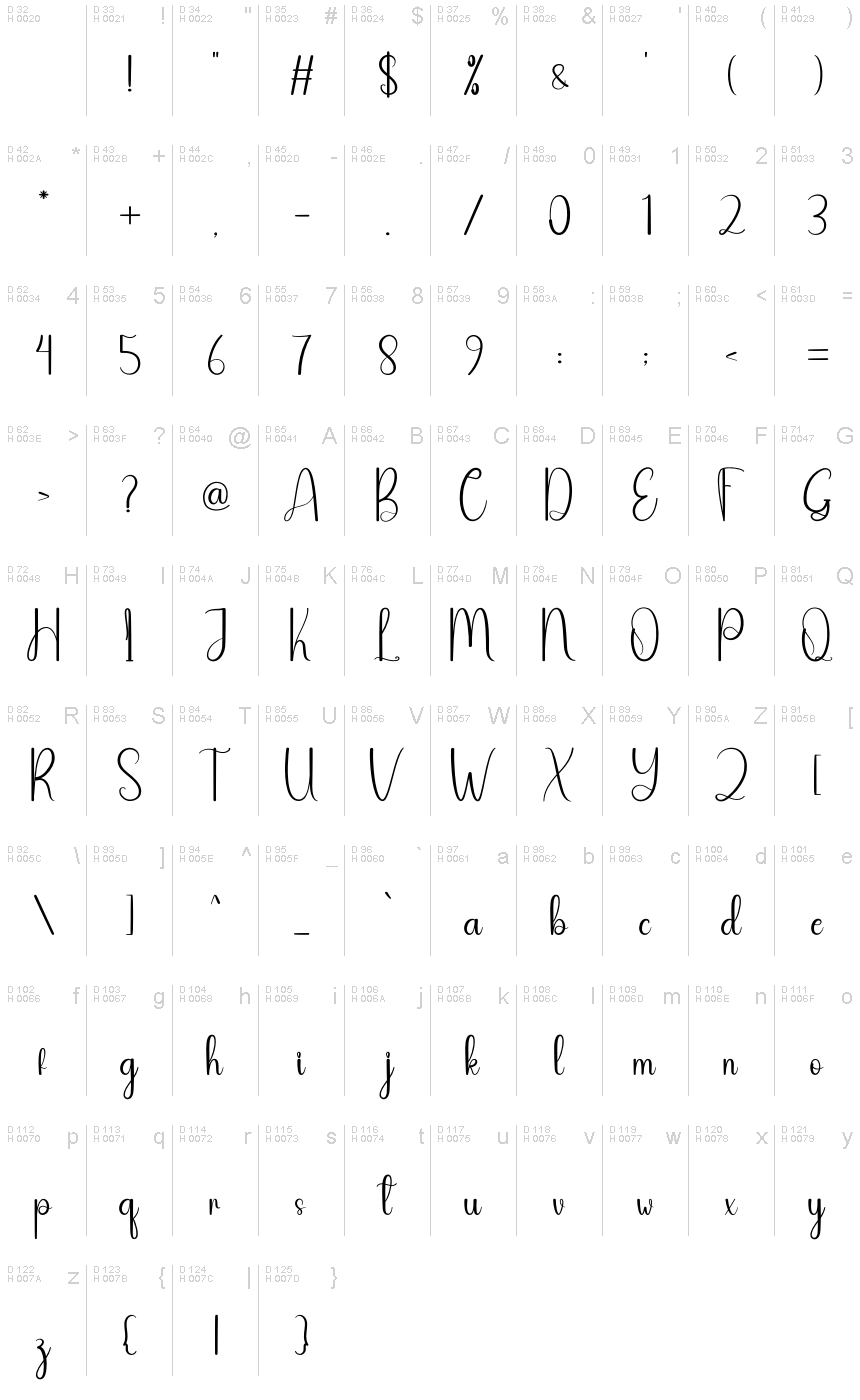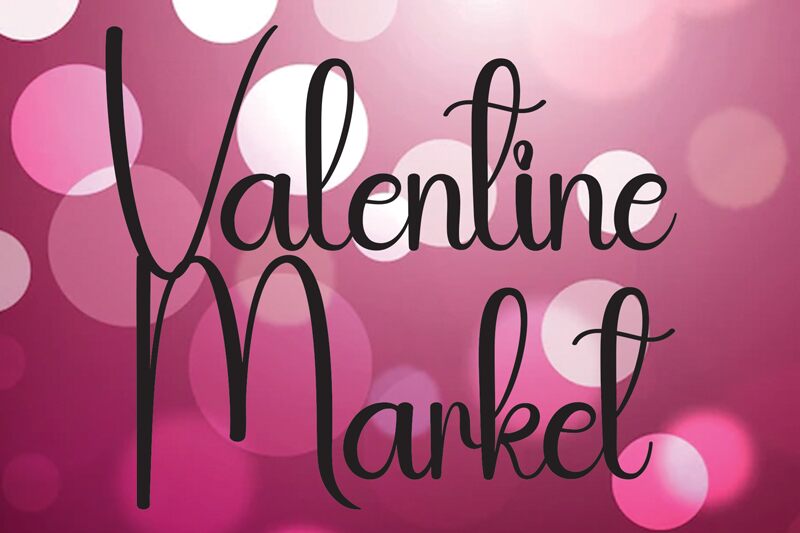
Valentine Market
Valentine Market is a captivating handwritten font that exudes a whimsical and romantic charm. Designed by Andi Moz, this light-weight font boasts striking, organic letterforms that effortlessly convey a sense of warmth and personal expression.
The flowing, artistic strokes and subtle variations in line thickness lend the font a distinctly hand-crafted aesthetic, making it an ideal choice for a wide range of design applications, from wedding invitations and greeting cards to branding and packaging.
This versatile font seamlessly blends elegance and approachability, making it a versatile tool for designers seeking to create visually compelling and emotionally resonant designs.